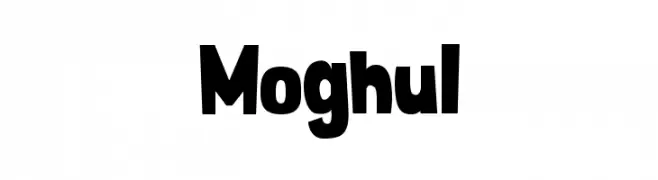
Bold, playful, and spooky display font with irregular shapes.
A bold, distressed display font with jagged, hand-drawn edges.
Whimsical, witch-themed decorative font with playful, spooky elements.
Distressed, jagged display font with a spooky, chaotic look.
A quirky, monster-themed decorative font with jagged edges and expressive faces.
Bold, rounded display font with Halloween-themed icons.
A bold, dripping decorative font with a horror or blood theme.
A bold, medieval-inspired display font with sharp, gothic features.
A bold, gothic-inspired display font with sharp, angular forms.
A bold, gothic blackletter font with sharp, dramatic strokes.
Bold, outlined blackletter font with dramatic, medieval flair.
Decorative outlined blackletter font with sharp, angular strokes.
Outline blackletter font with sharp, gothic forms.
Bold, jagged display font with a horror or grunge vibe.
A display font of raven silhouettes and distressed symbols.
A bold, brush-stroke display font with jagged, energetic edges.
Bone-inspired decorative display font with a skeletal, hand-drawn look.
Outline decorative font with jagged, pirate-inspired edges.
Bold, decorative font with rugged, pirate-themed styling.
A bold, decorative font with dinosaur silhouettes embedded in each character.
Bold, rounded, playful sans-serif with a hand-drawn feel.
Thin, whimsical handwritten script with tall, airy letterforms.
Casual handwritten script with rounded, playful strokes.
Casual handwritten script with playful, rounded strokes.
Expressive handwritten script with contrasting weights.
A lively handwritten script with contrasting uppercase and lowercase styles.
Casual handwritten font with brush-like strokes.
A whimsical, handwritten script with tall, thin letters and a casual feel.
Elegant, handwritten script with connected, flowing strokes.
Expressive handwritten script with brush-like strokes.
Casual handwritten sans-serif with tall, narrow characters.
Handwritten cursive script with a natural, signature style.
Elegant, casual handwritten script with thin, flowing lines.
Handwritten script font with smooth, connected strokes.